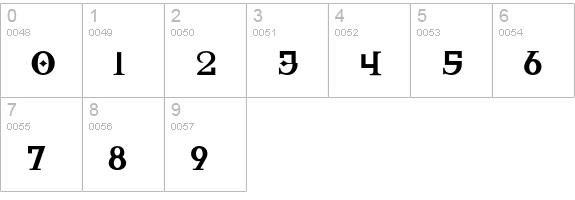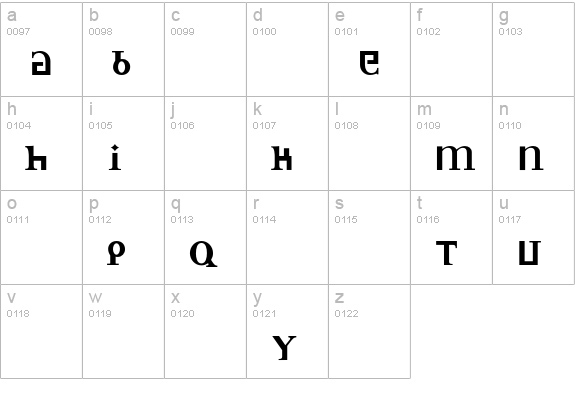
NeoBold Font Details
NeoBold font is a modern and stylish typeface that exudes confidence and sophistication. Its bold and clean lines make it perfect for a wide range of design projects, from branding to editorial design. The sharp angles and sleek curves of NeoBold give it a contemporary edge that is sure to make any text stand out. What's even better is that NeoBold is available for free download at FontsMarket.com, allowing designers and creatives to easily access this versatile font for their projects. With its bold presence and modern appeal, NeoBold is a must-have font for anyone looking to make a statement with their typography.